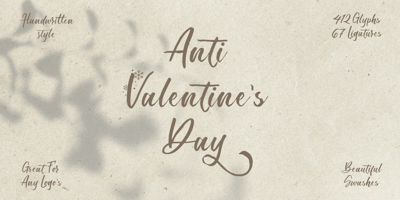
Anti Valentines Day Font Family was designed by Alde Saputro and published by Aldedesign. Anti Valentines Day contains 2 styles and family package options. Anti Valentine’s Day is a flowing handwritten font, described by an elegant touch, perfect for your favorite projects. This font is PUA encoded which means you can access all glyphs and swashes with ease!